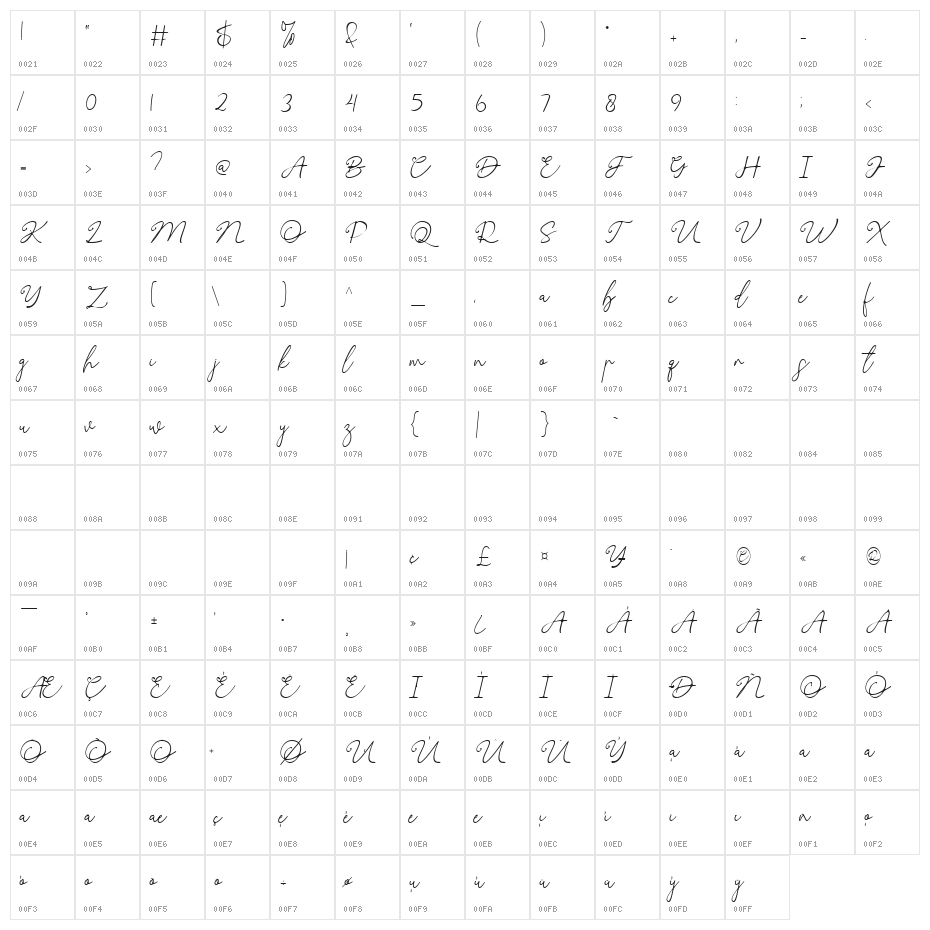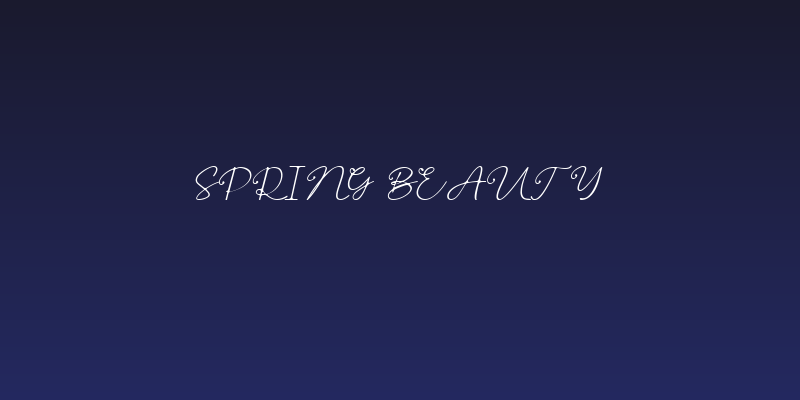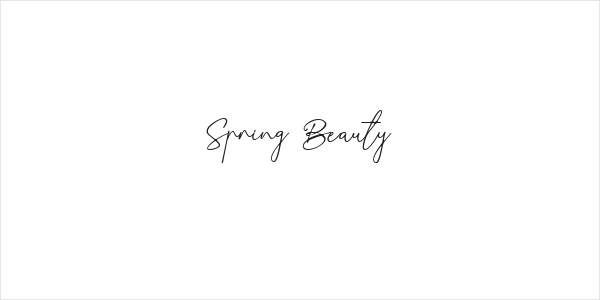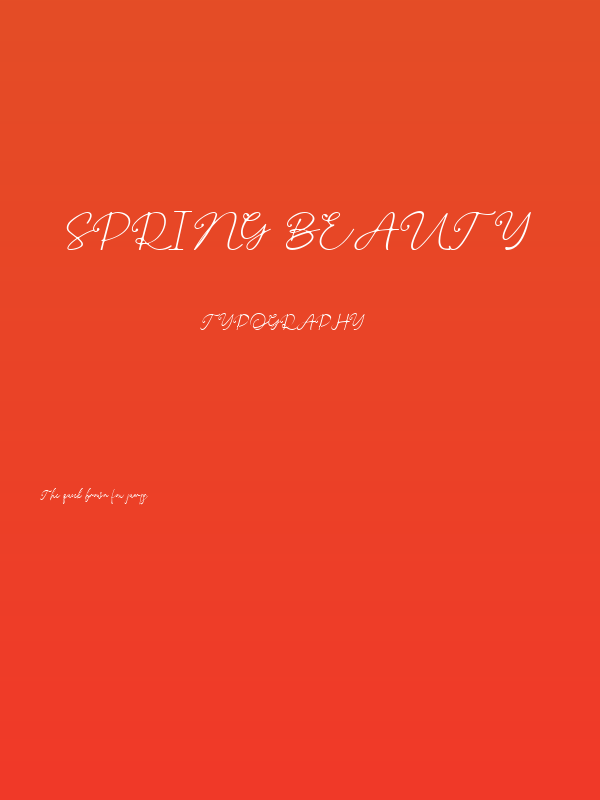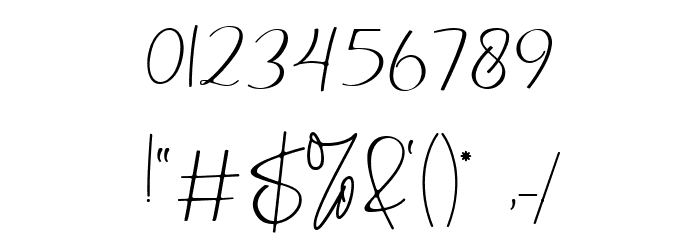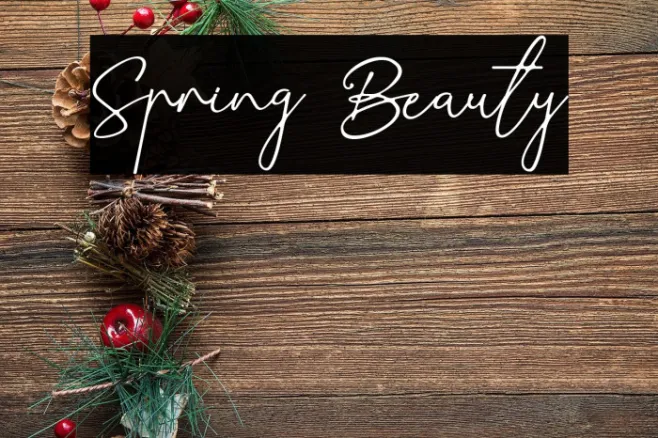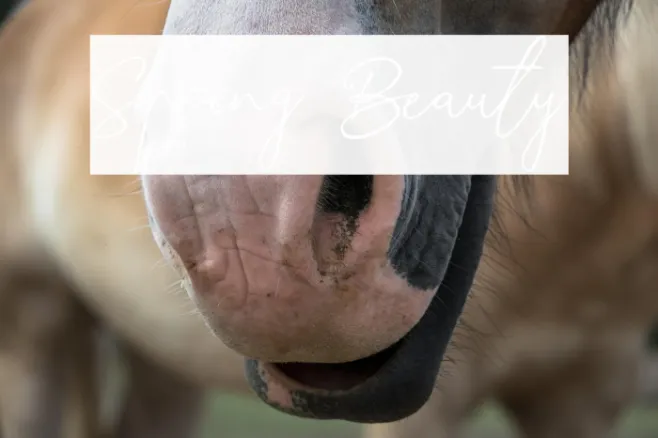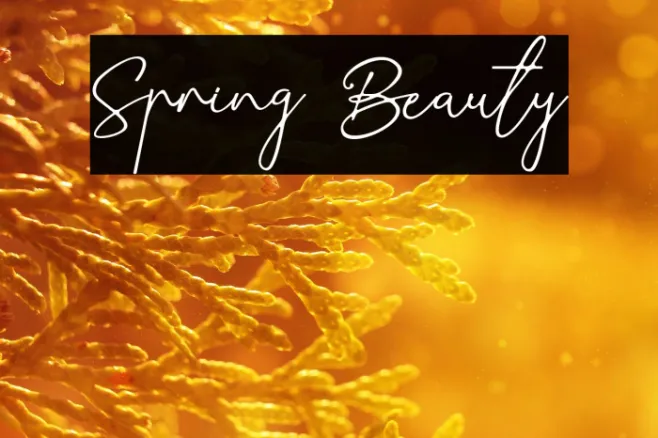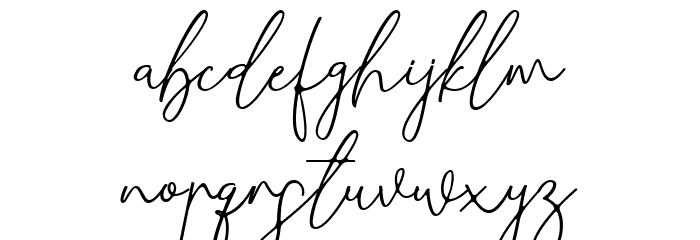
Spring Beauty Font
Spring Beauty Description
This elegant script font features a flowing, cursive style with a modern twist. The uppercase letters are gracefully connected, while the lowercase letters maintain a consistent, fluid motion. The numerals are distinct and easy to read, complementing the overall aesthetic. Special characters are thoughtfully designed, adding a touch of sophistication. The font's delicate lines and smooth curves make it ideal for projects that require a personal, handwritten touch. Its balanced proportions and stylish flair make it versatile for various design needs.